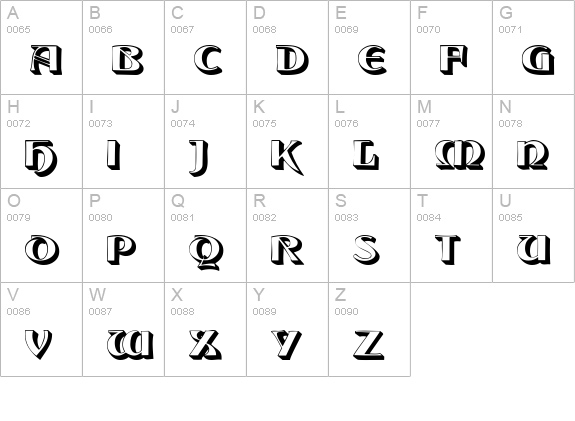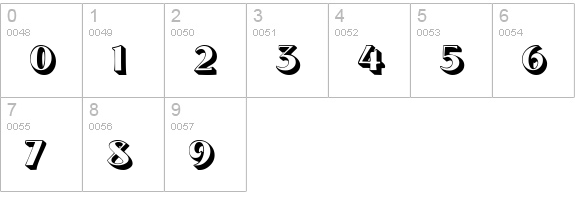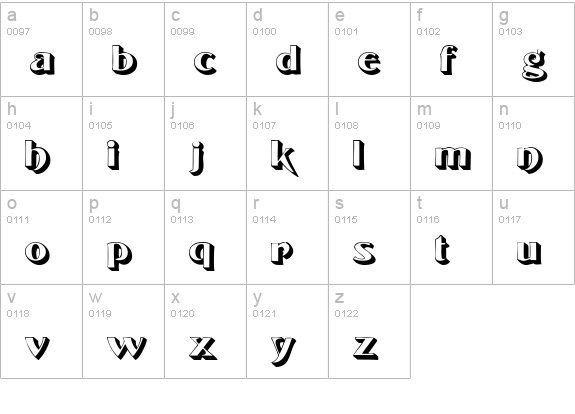
Brunswyk Font Details
Introducing Brunswyk, a versatile and stylish font that brings a touch of elegance to any design project. This beautiful typeface features a unique blend of modern and classic elements, making it perfect for a wide range of applications. With its clean lines and graceful curves, Brunswyk is sure to make a lasting impression. Best of all, Brunswyk is available for free download at FontsMarket.com! Whether you're working on a branding project, creating invitations, or designing a website, this font is a fantastic choice. Don't miss out on the opportunity to add Brunswyk to your font collection today. Download it now and elevate your designs with this stunning typeface.